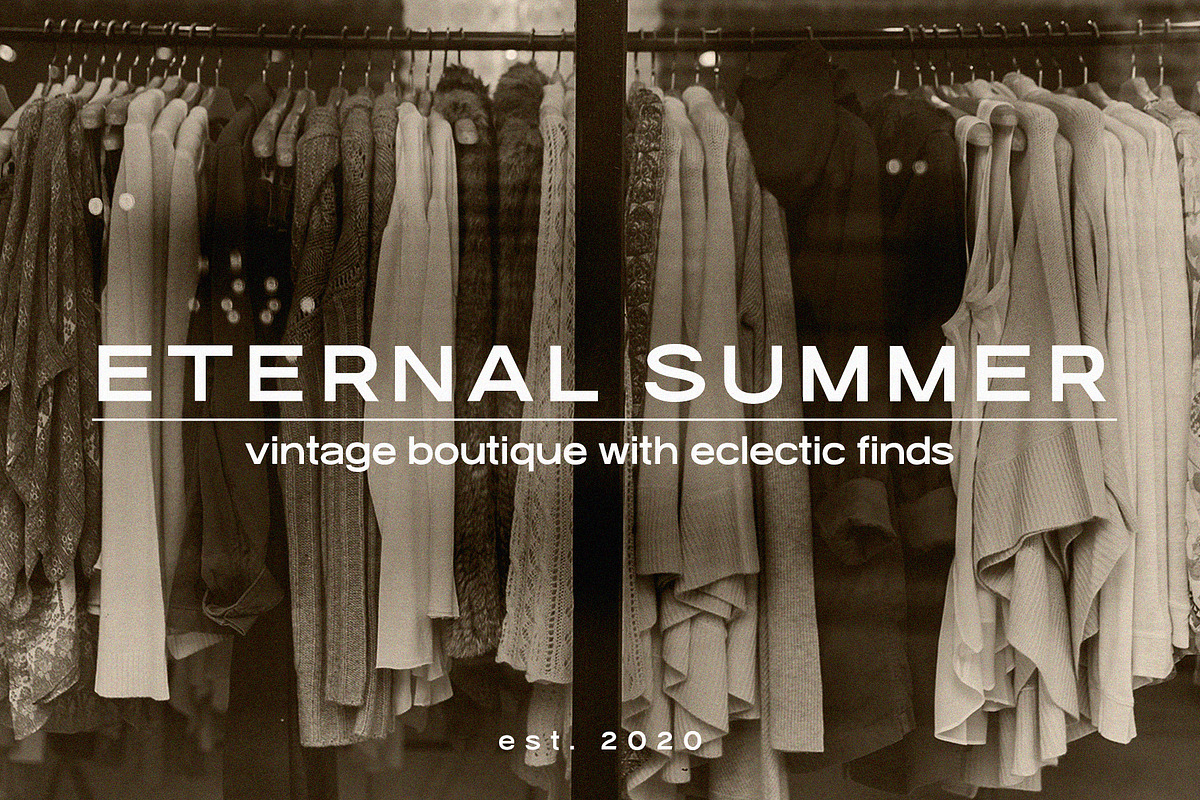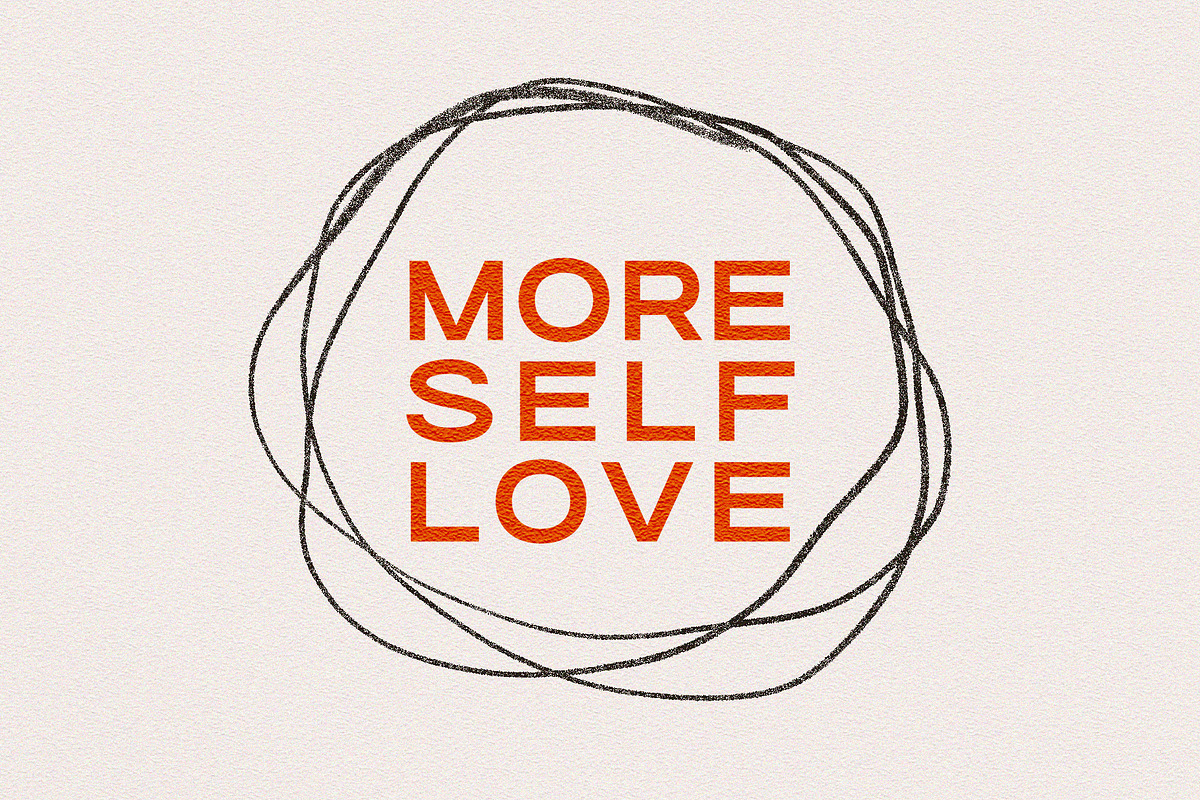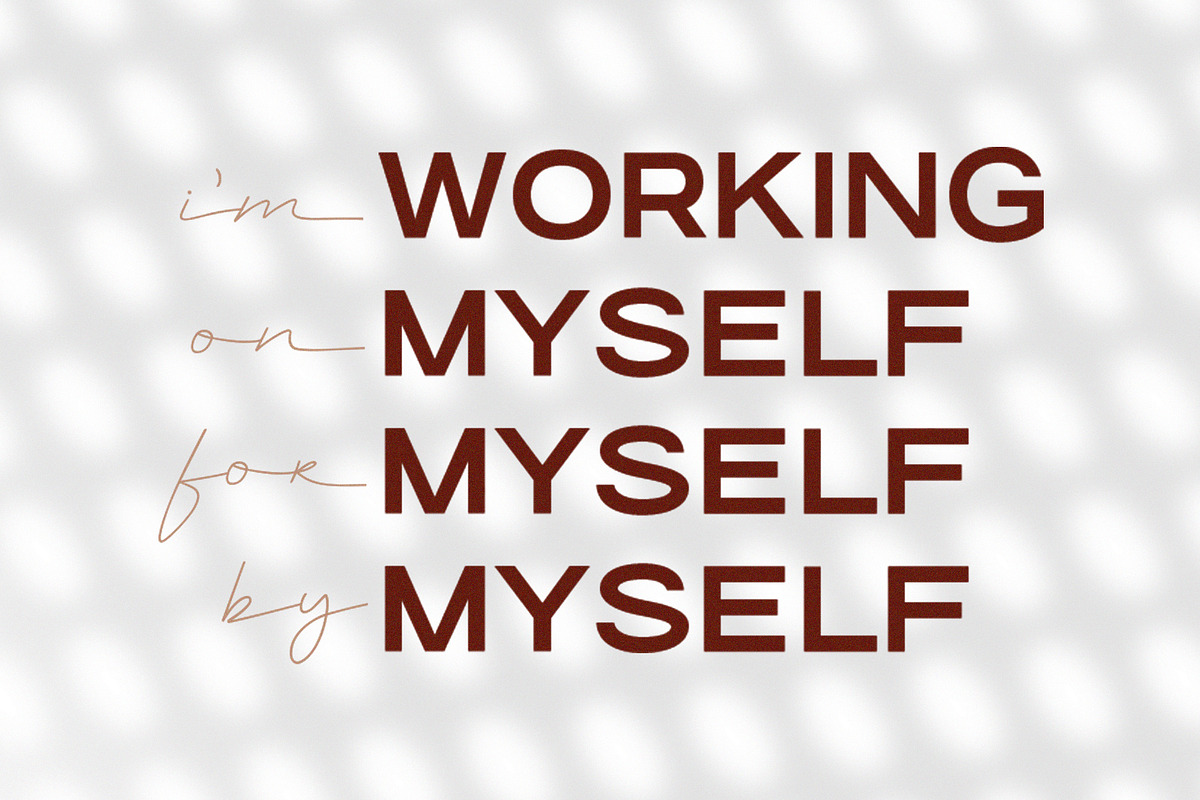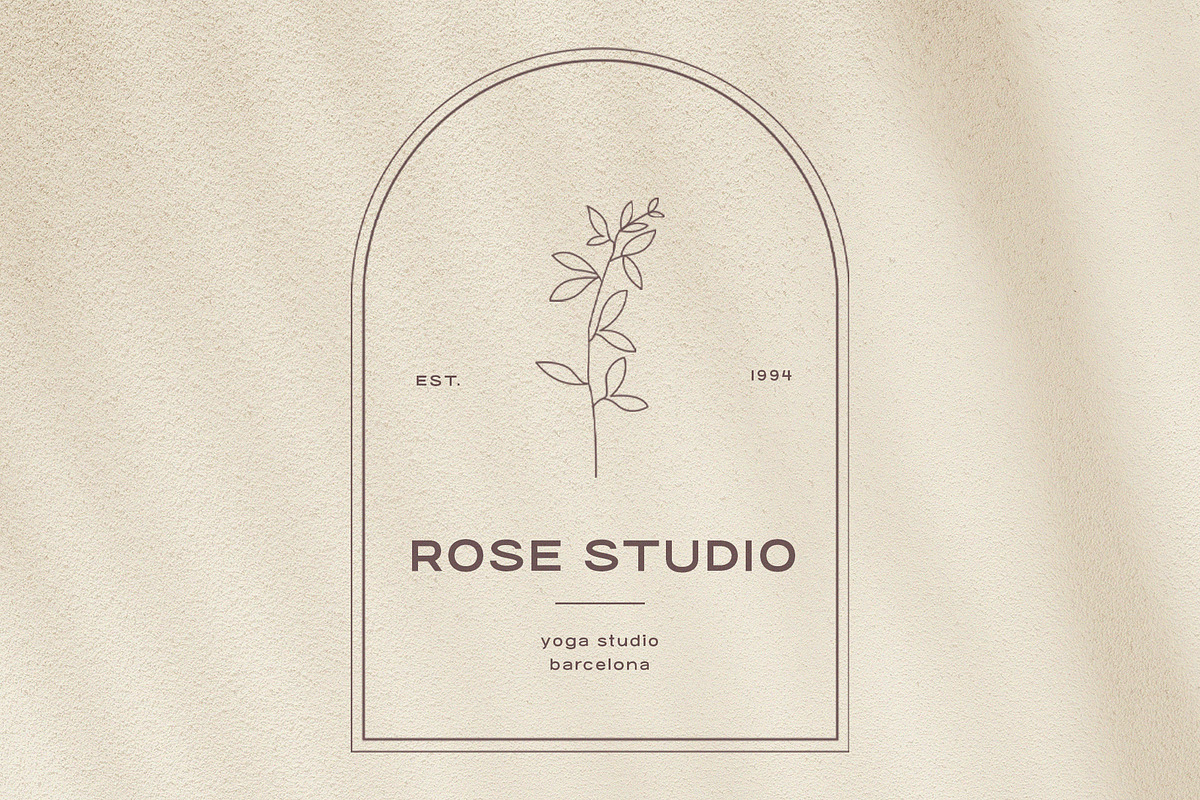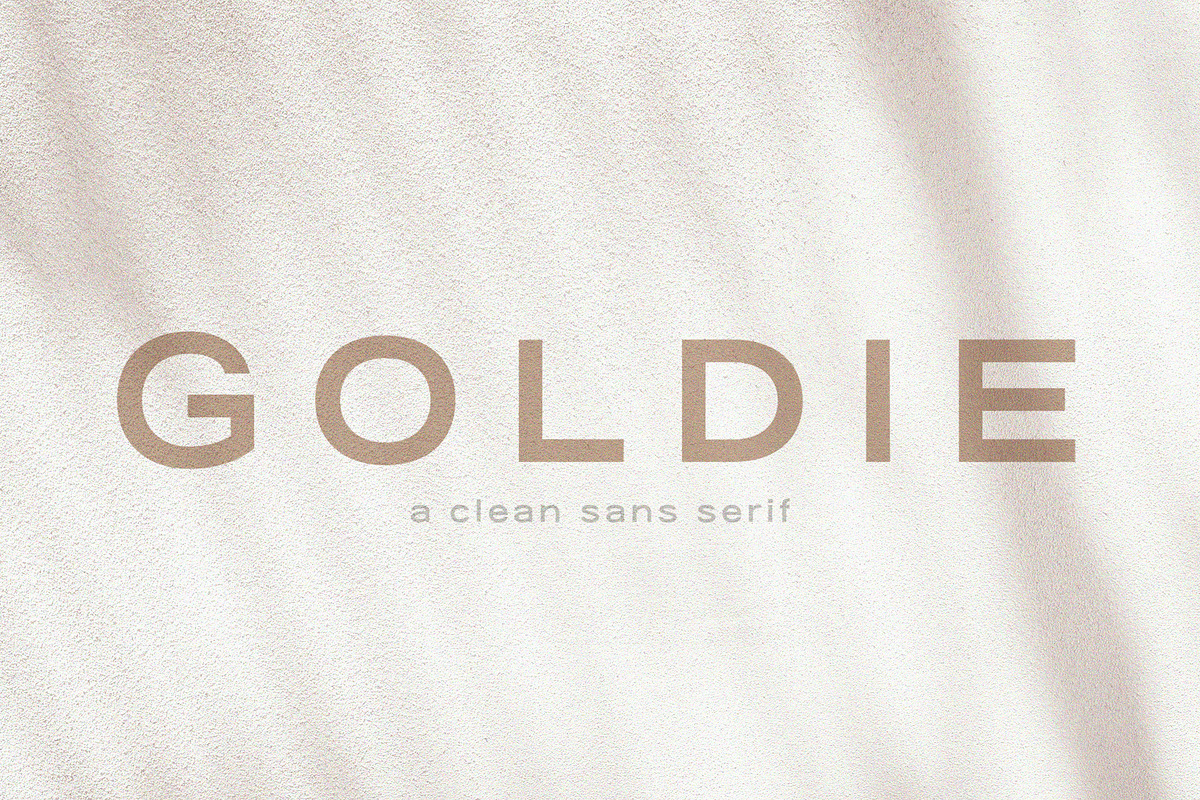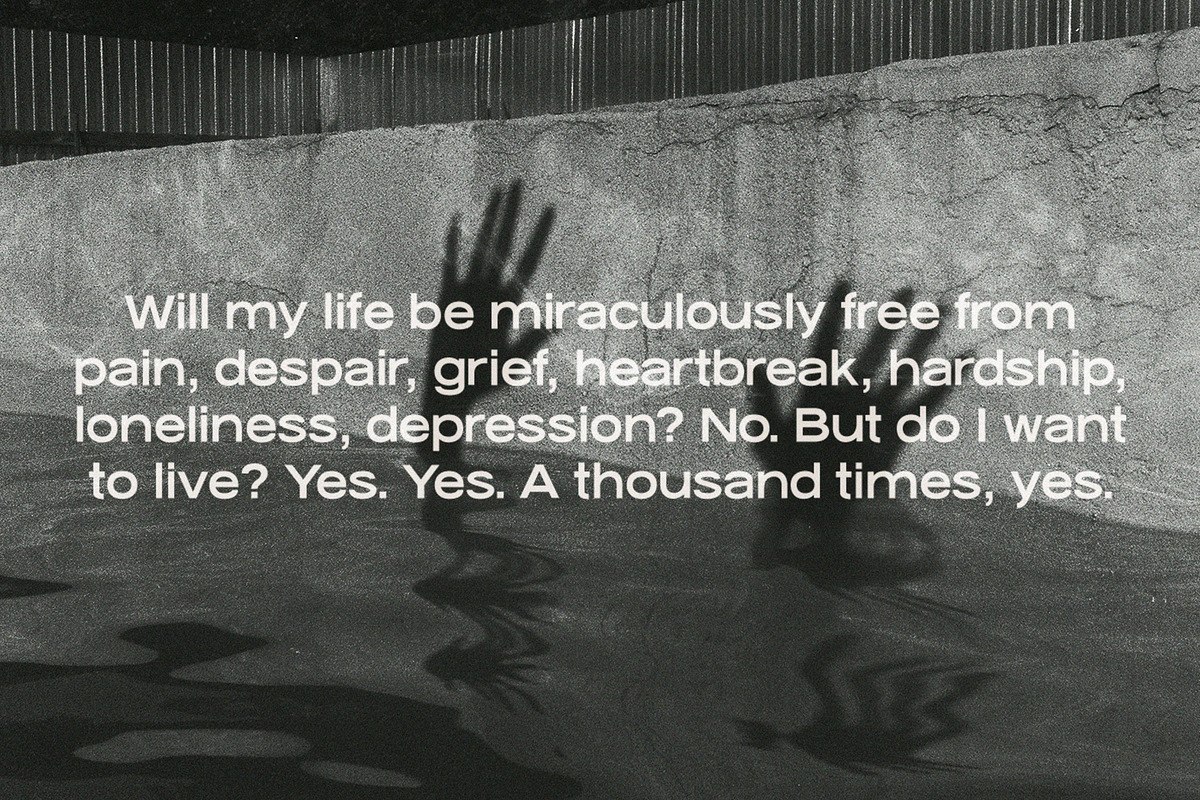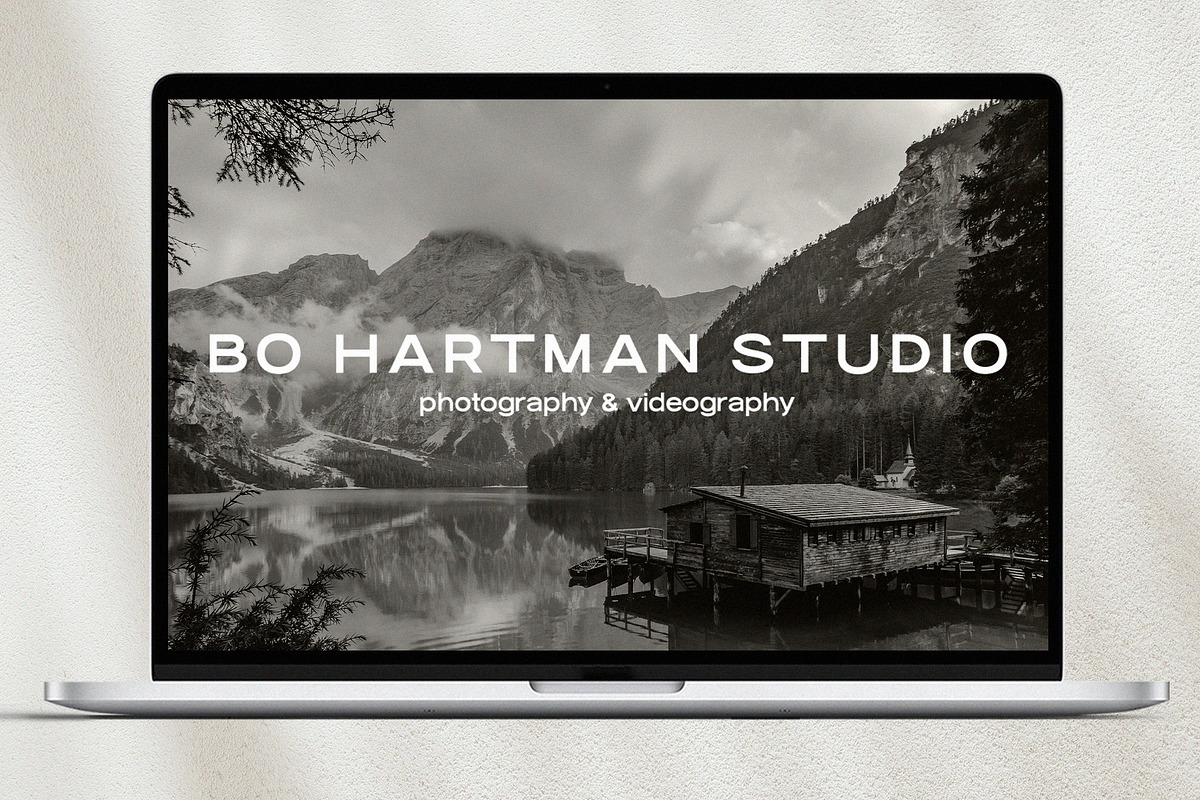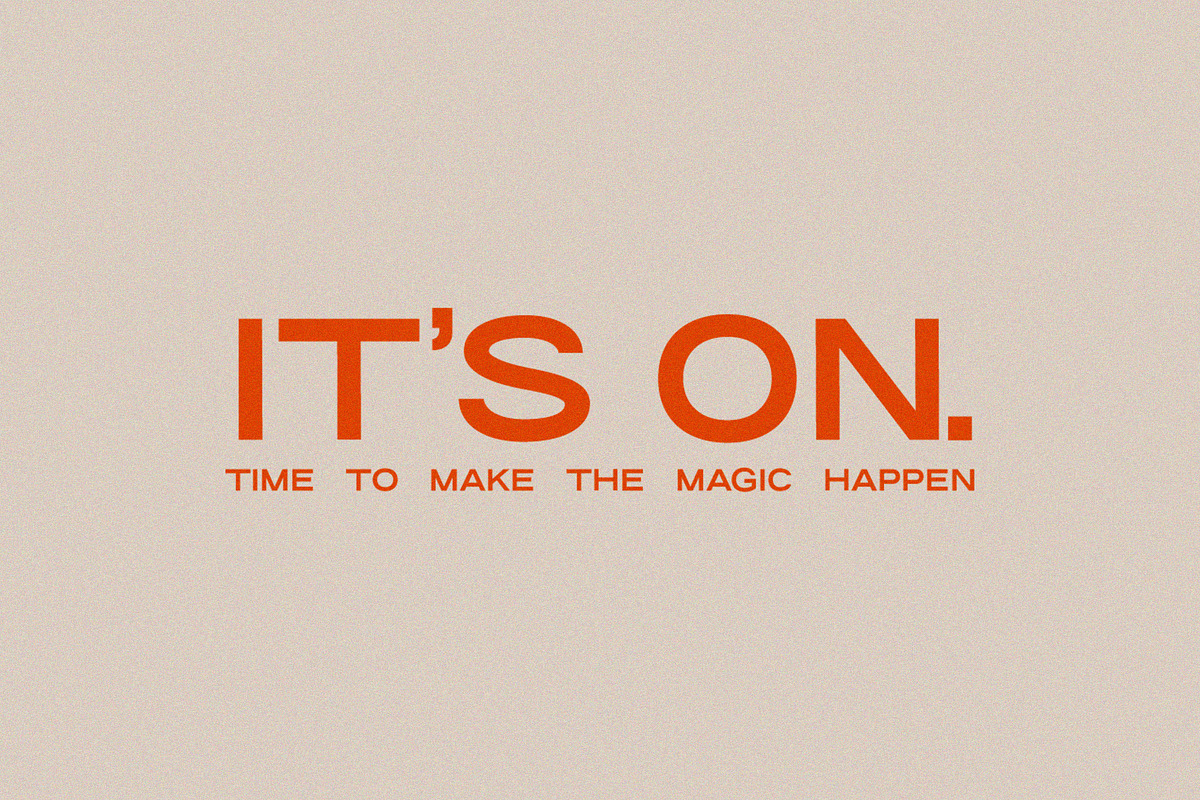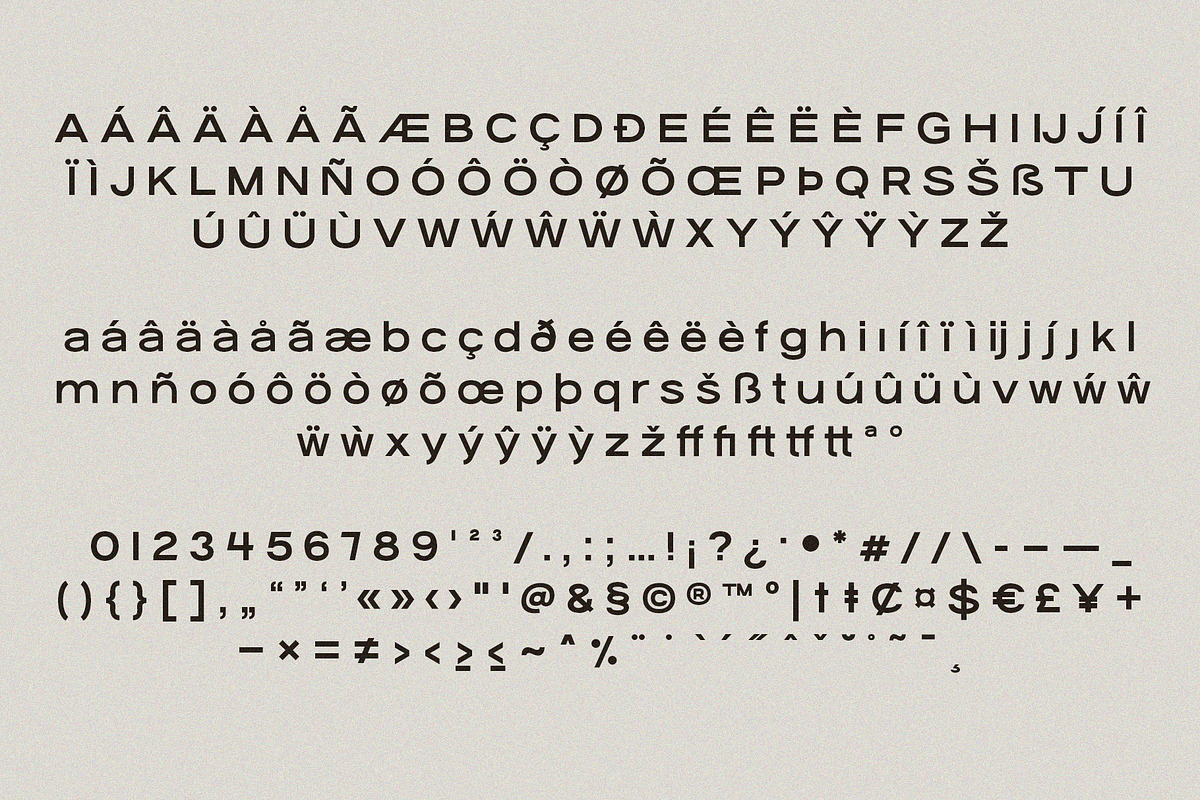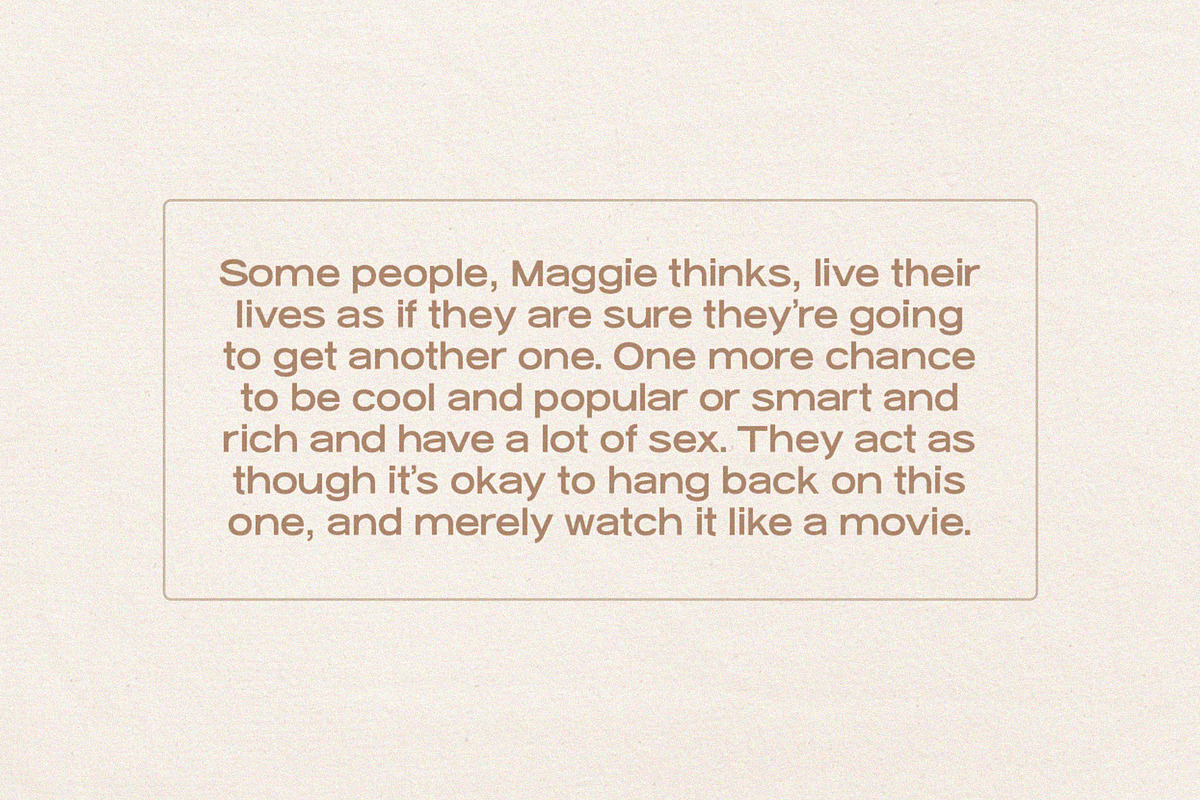
Goldie | A Clean Quotable Sans
Meet Goldie! A clean and chunky sans serif perfect for logos, quotes, branding, invitations, wedding stationery, and more.
Lately, I have been pairing it with hand-lettered headlines for a wedding suite I am designing as well as on the banner on my Creative Market profile. Hoping to have a digital download for you soon so you can easily do the same!
- Goldie Sans light
- Goldie Sans bold
- Uppercase + lowercase
- Numbers + punctuation
- Multilingual accents + characters